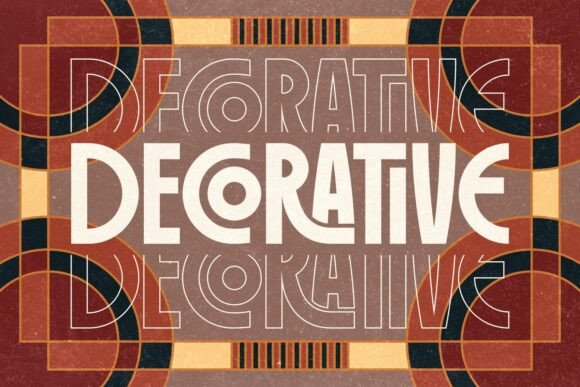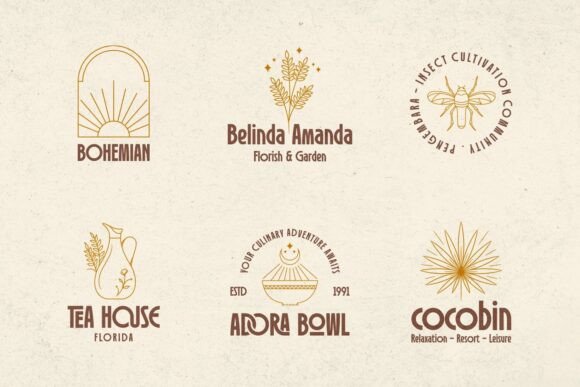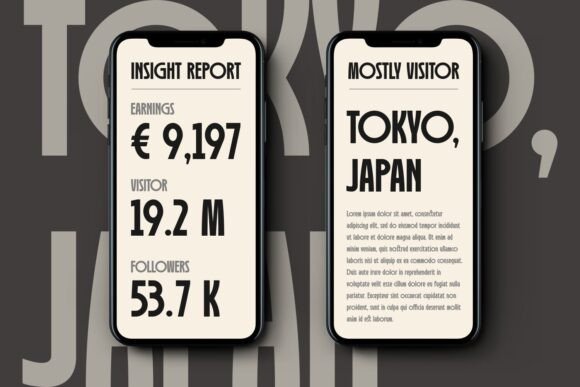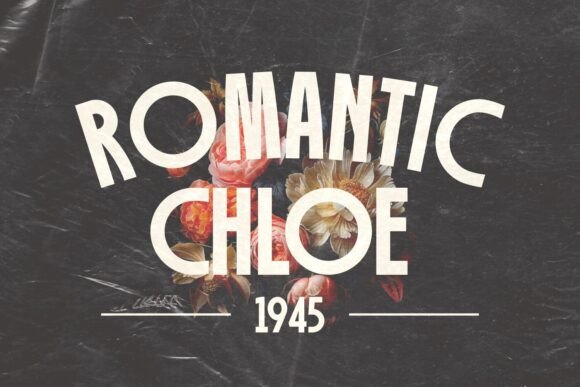
Robinco Font
Robinco is a modern ligature art deco style font. This font embodies a timeless combination of luxury, boldness, and geometric elegance, making it perfect for designs that seek to evoke a sense of classic sophistication and modernity. This font is suitable for trendy packaging label designs, unique desired logos, poster designs, fashion, and many more.